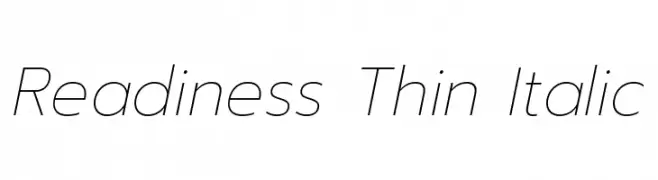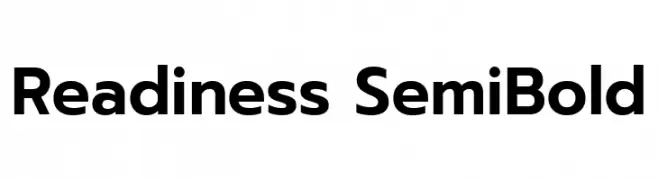
A sleek, extra light italic font with a modern and elegant style.
A modern, clean sans-serif font with geometric influences and excellent legibility.
A thin, modern font with clean lines and balanced spacing.
A bold, modern typeface with clean lines and strong presence.
A bold, modern font with thick, uniform strokes.
A sleek, thin italic font with modern elegance and high legibility.
A clean, modern sans-serif font with geometric shapes and uniform strokes.
A sleek, modern, extra-light font with a clean and minimalistic design.
A modern sans-serif font with an italic slant and medium weight.
A modern, semi-bold sans-serif font with excellent legibility and balance.